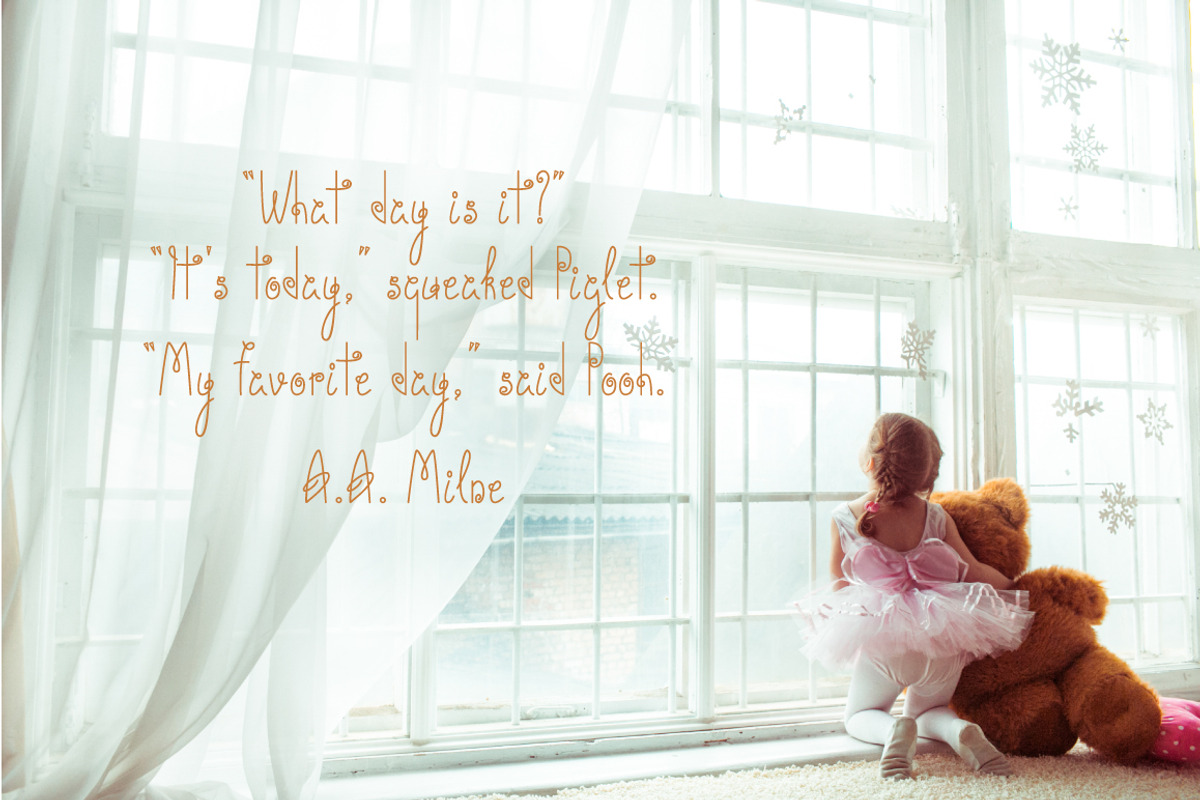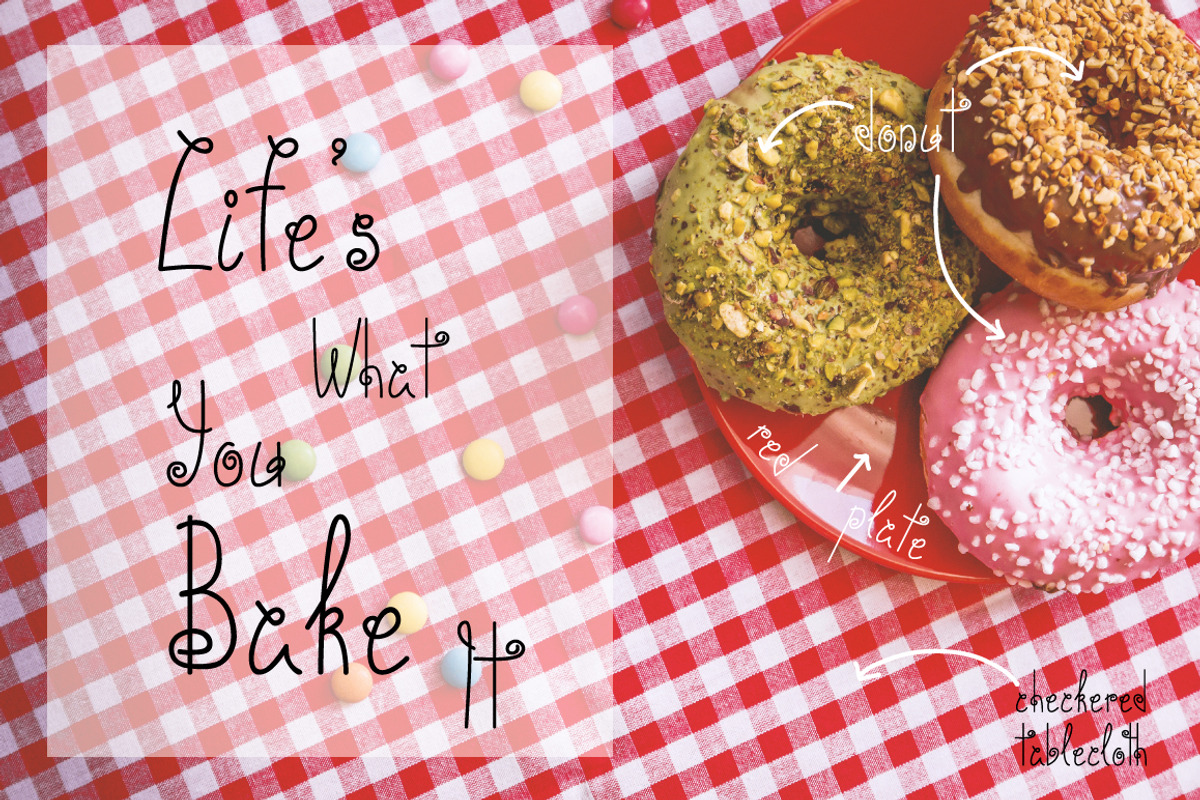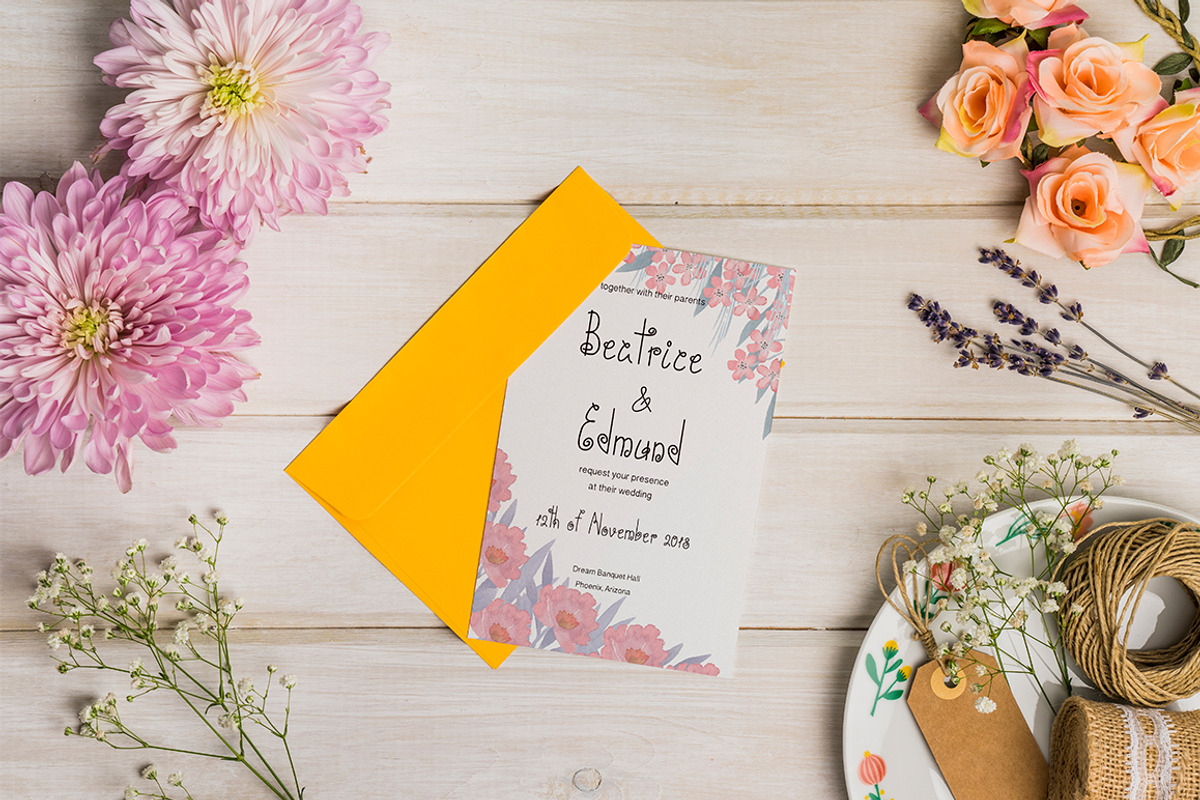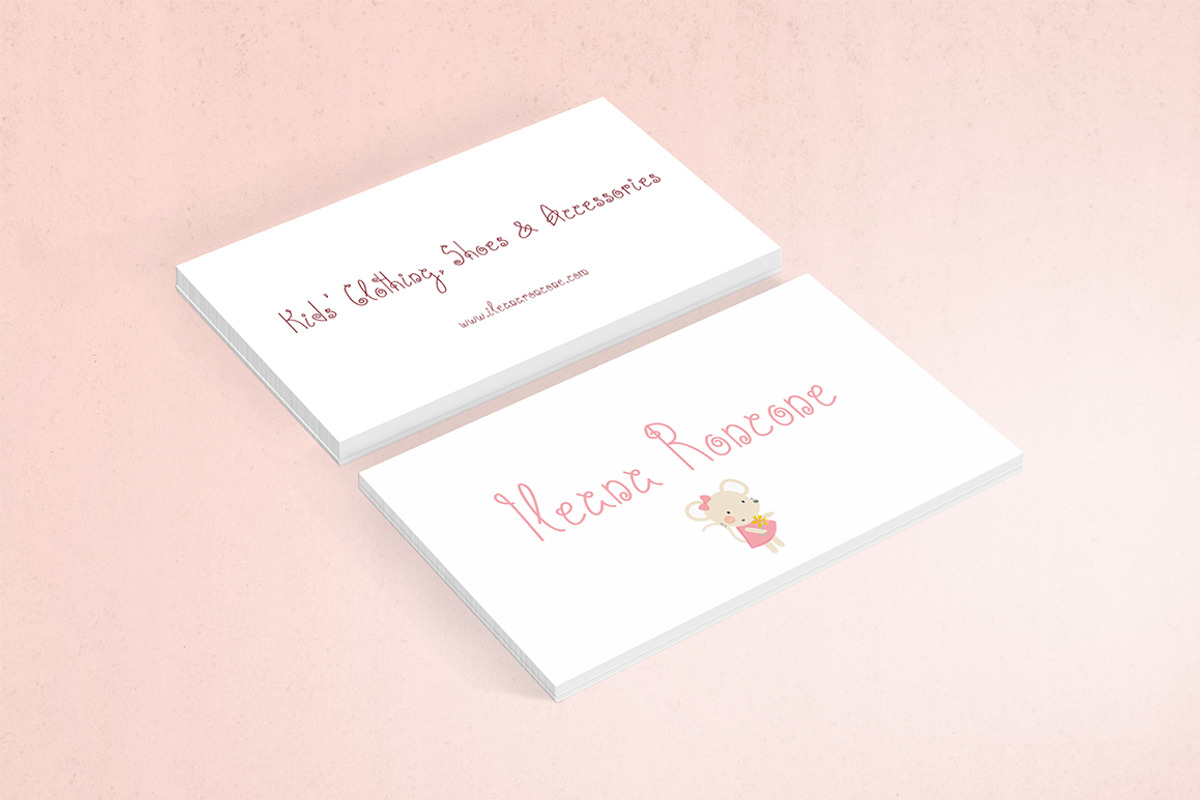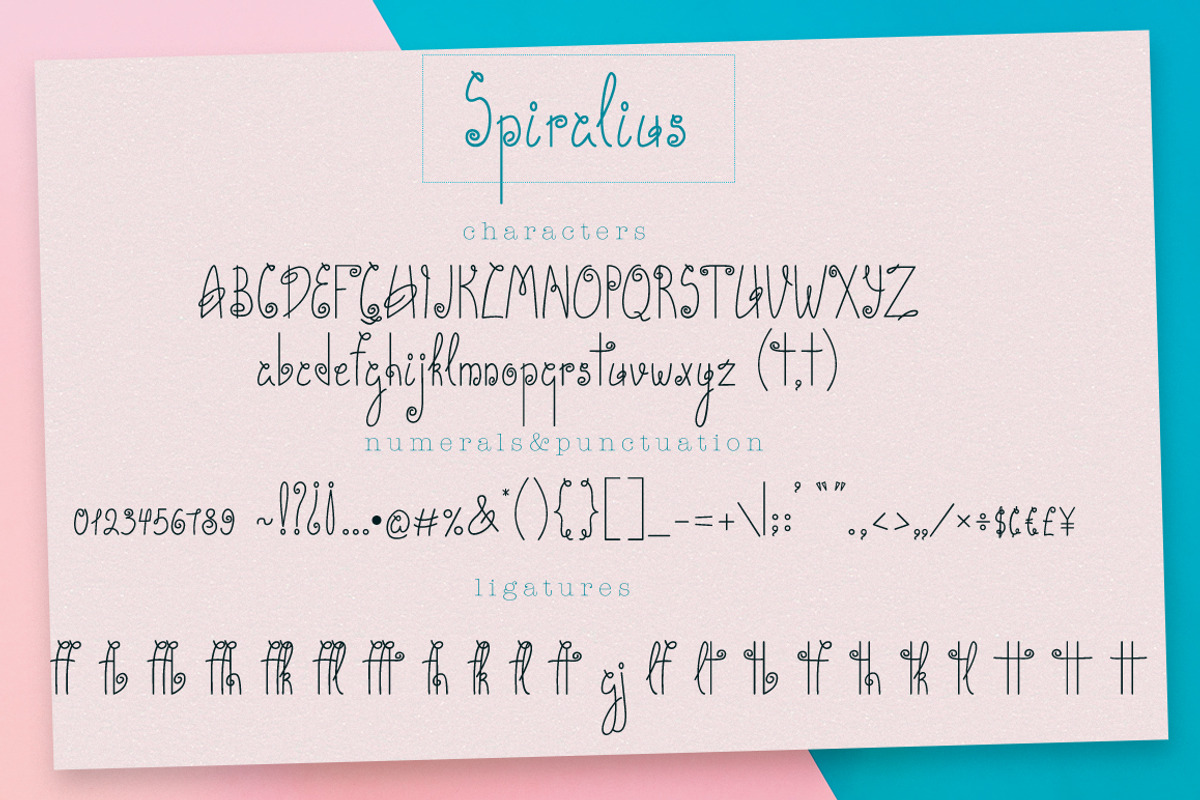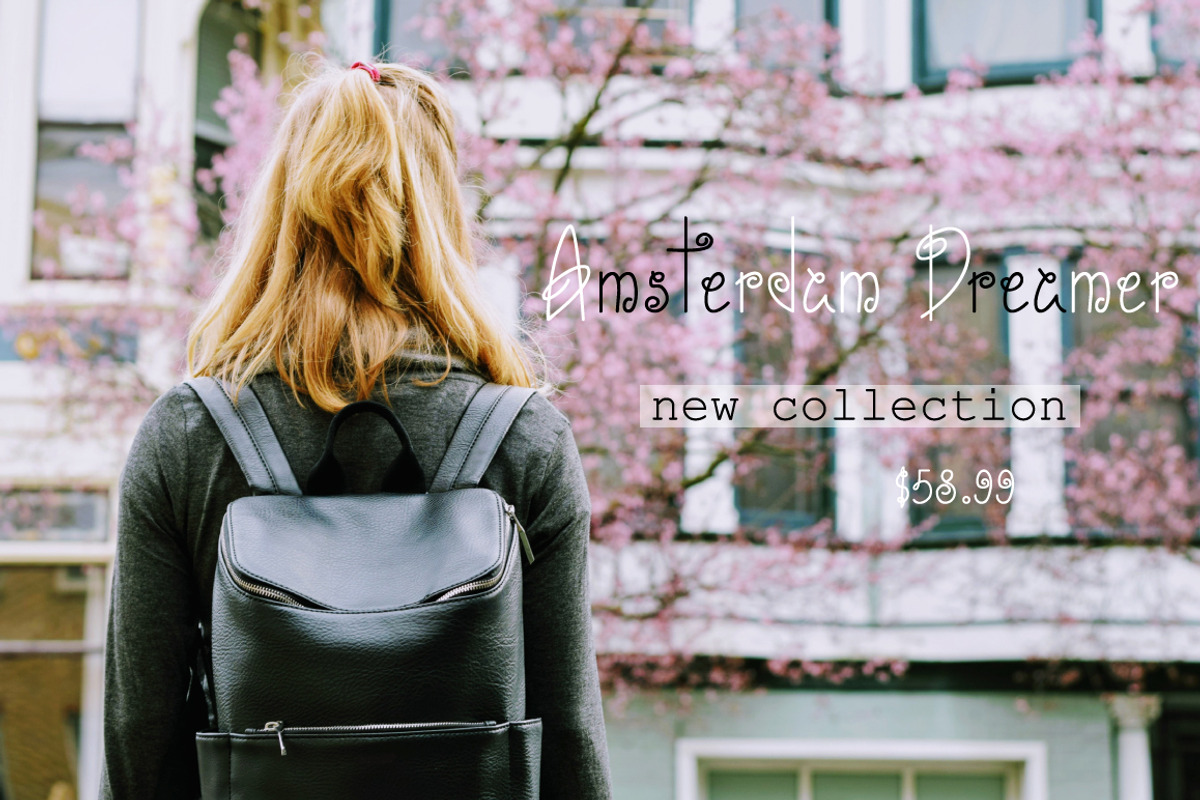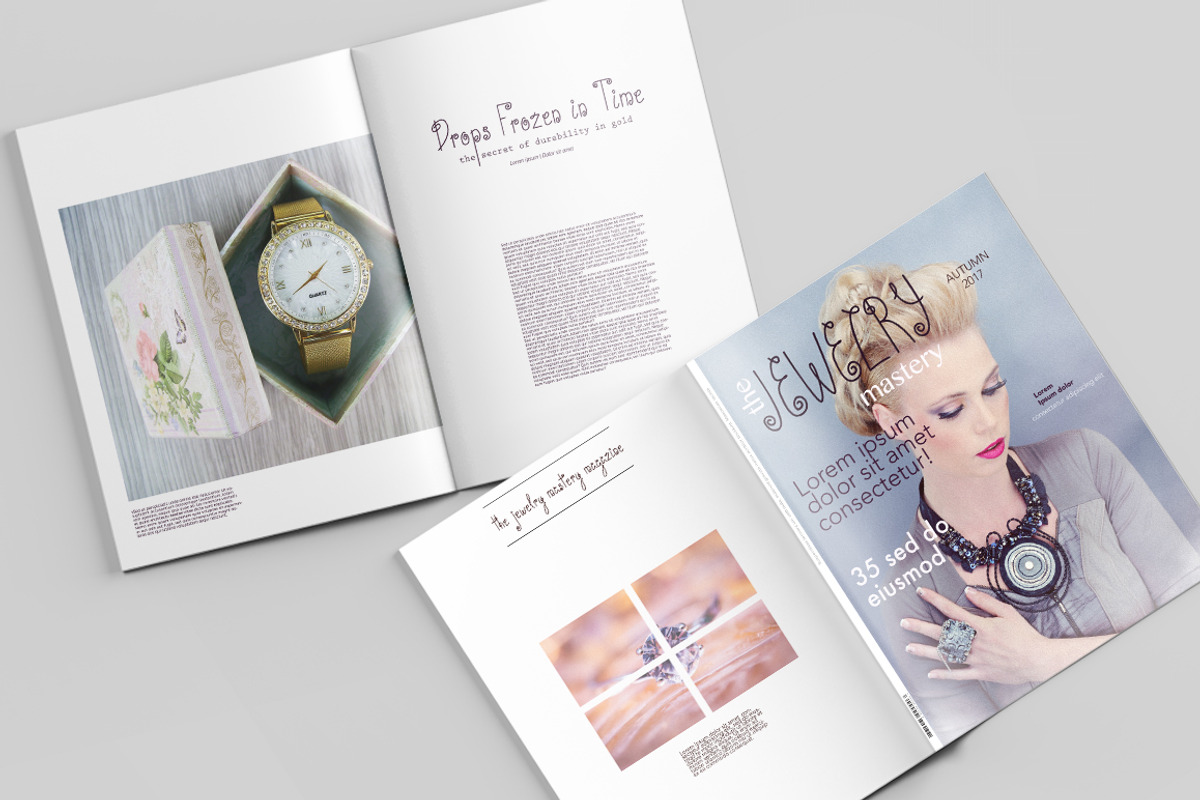
Spiralius Font. Volume 2
Please welcome sweet and elegant font Spiralius, volume 2!
You are freely to use this smooth script for bright and fun designs.
Magazines, book covers, logos, greetings, business cards and company branding, wedding menu, home frame and more - Spiralius will look nice in all your creative projects.
Notice ligatures - they’re displayed in the presentation.